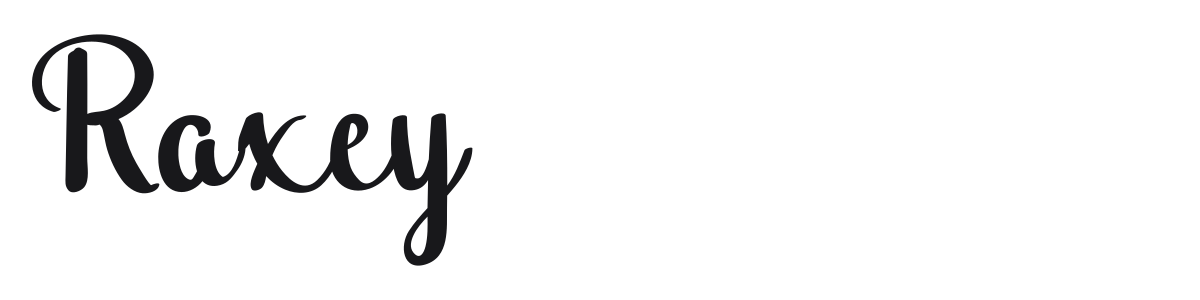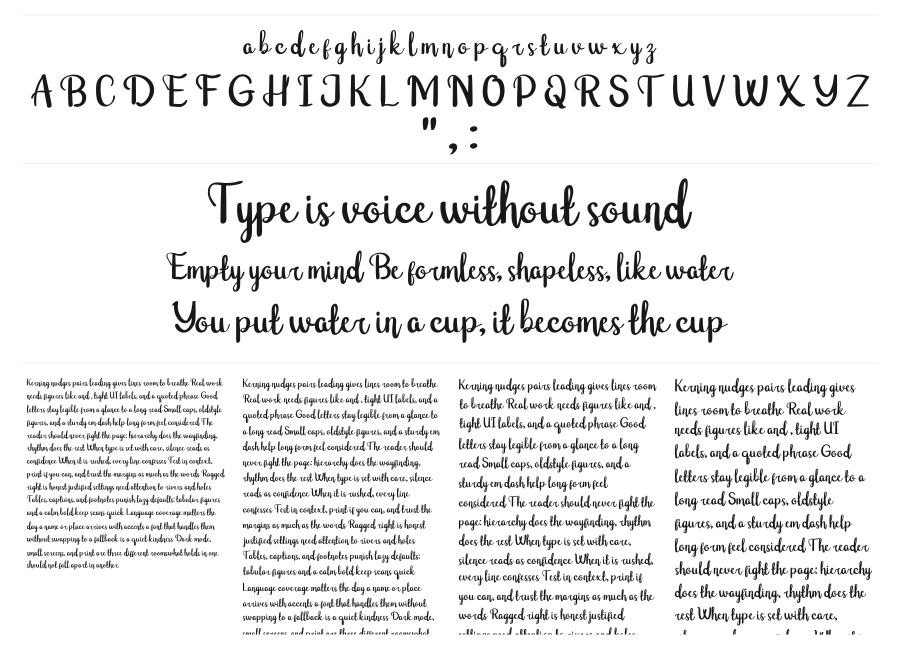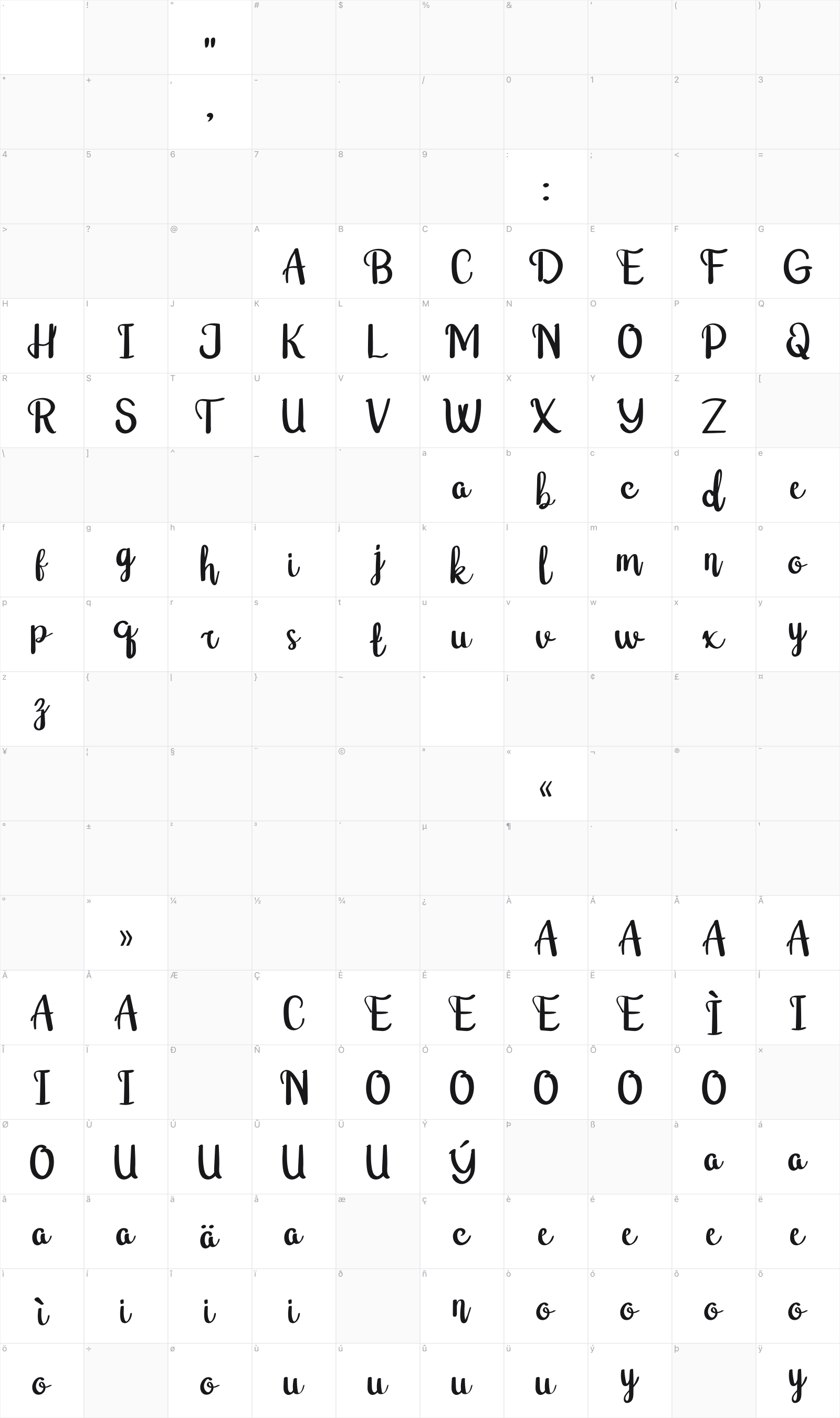
Raxey
Raxey is a casual connected script with a clean, handwritten quality and flowing strokes that feel natural rather than fussy. Looped ascenders and gentle baseline bounce give it energy without tipping into chaos. A reliable choice for branding, packaging, and editorial work that needs warmth and personality.